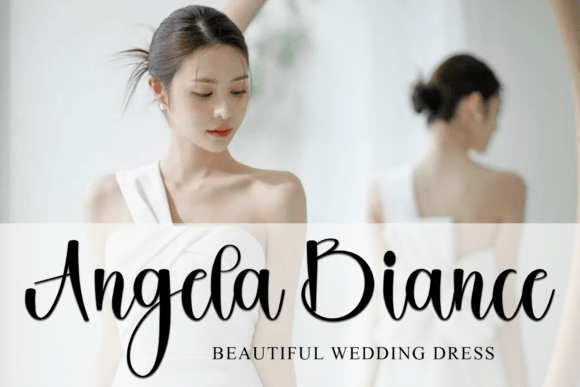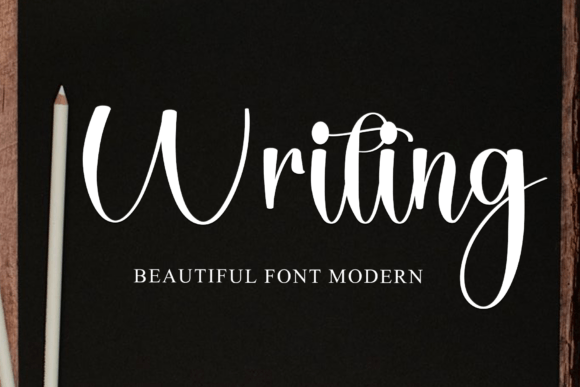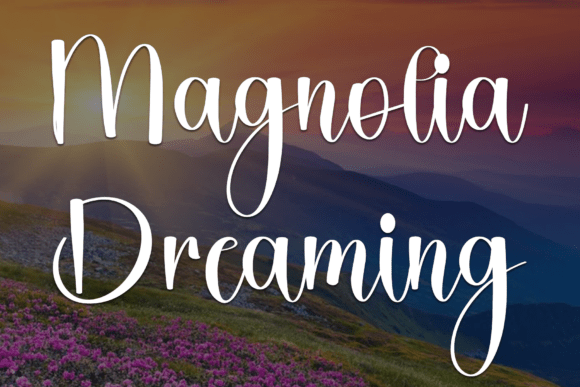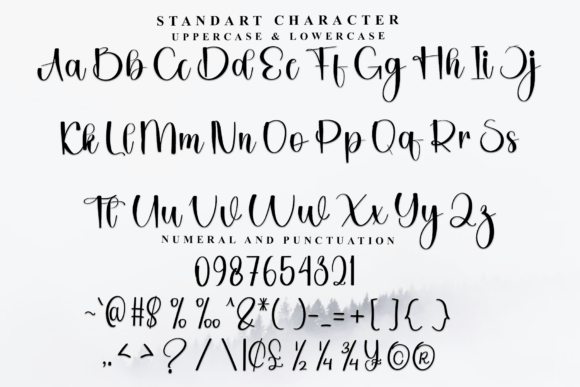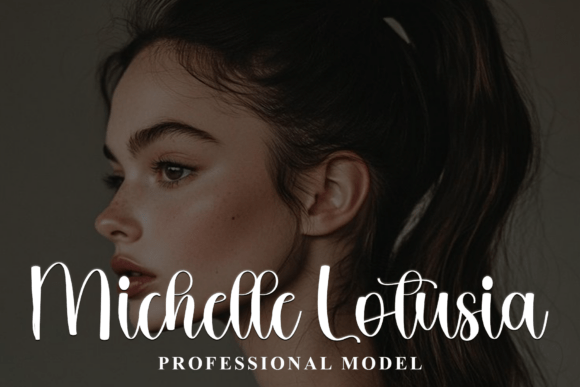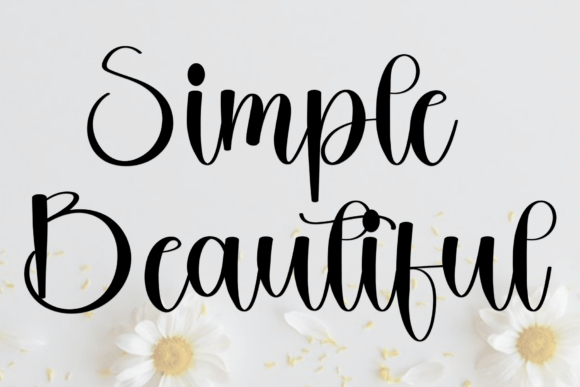
Introducing Delightful Handmade Font: A Festive and Merry Typeface for the Holiday Season
Are you looking for a font that captures the essence of the holiday season? Do you want to add a touch of magic to your designs and make them stand out? Look no further than Delightful Handmade Font, a festive and merry typeface that is perfect for greeting cards, gift tags, and holiday-themed projects.
A Font that Embodies the Spirit of the Holiday Season
Delightful Handmade Font is a decorative typeface that is designed to bring a cheerful and nostalgic ambiance to your words. With its whimsical flair and enchanting elements, this font is sure to add a touch of wonder to your designs. Whether you’re creating holiday greeting cards, gift tags, or festive posters, Delightful Handmade Font is the perfect choice.
Key Features of Delightful Handmade Font
- PUA Encoded: Delightful Handmade Font is PUA encoded, which means you can access all of the amazing glyphs and ligatures with ease. This makes it simple to use and incorporate into your designs.
- Decorative Elements: This font features decorative elements that add a touch of festivity and whimsy to your designs.
- Whimsical Flair: Delightful Handmade Font has a whimsical flair that makes it perfect for holiday-themed projects.
- Perfect for Holiday Projects: This font is specifically designed for holiday-themed projects, making it perfect for greeting cards, gift tags, and festive posters.
Why Choose Delightful Handmade Font?
There are many fonts available that claim to be festive and merry, but Delightful Handmade Font stands out from the rest. Here are just a few reasons why:
- Unique and Eye-Catching: Delightful Handmade Font is a unique and eye-catching typeface that will make your designs stand out.
- Easy to Use: With its PUA encoding, this font is easy to use and incorporate into your designs.
- Perfect for Designers and Crafters: Delightful Handmade Font is perfect for designers and crafters who want to add a touch of magic to their projects.
- Greeting Cards: Create festive greeting cards for friends and family.
- Gift Tags: Add a touch of magic to your gift tags with Delightful Handmade Font.
- Festive Posters: Create eye-catching festive posters for your business or personal use.
Delightful Handmade Font is a festive and merry typeface that is perfect for the holiday season. With its decorative elements and whimsical flair, this font adds a touch of enchantment to your designs. Whether you’re a designer or crafter, Delightful Handmade Font is a must-have for any holiday-themed project. So why wait? Download Delightful Handmade Font today and let your typography shine with the magic of this beautiful font!